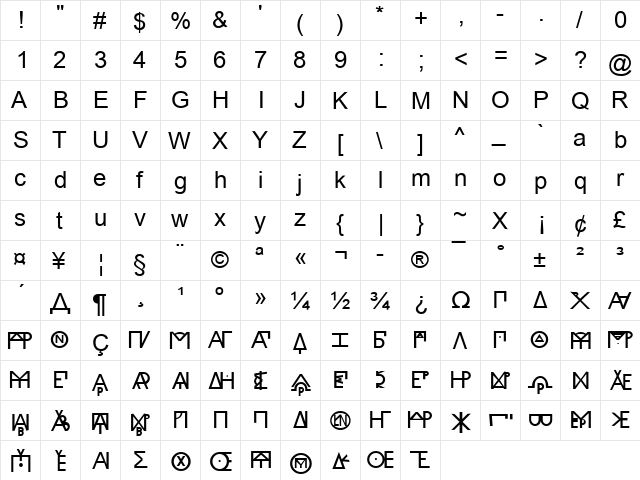
Coin Regular
Design Context for Coin Typeface
Coin offers clean, dependable letterforms without strong stylistic allegiance, making it a practical choice for designers who need flexibility.